Premium and open‑source fonts by Florian Karsten for versatile design projects
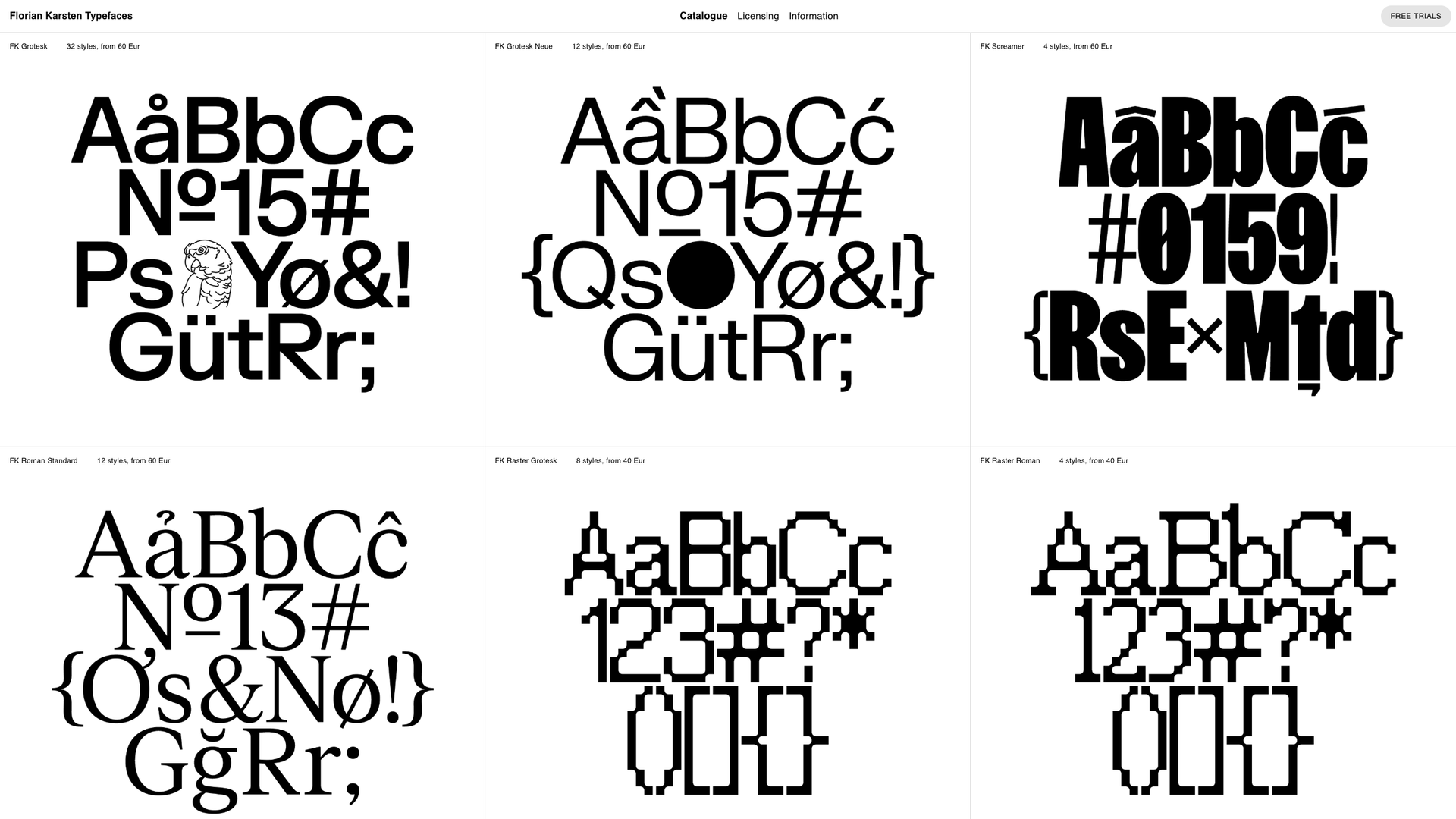
A curated collection of Florian Karsten’s typefaces, including FK Grotesk, FK Grotesk Neue, FK Screamer, FK Roman Standard, FK Raster Grotesk, FK Raster Roman, FK Display, Space Grotesk and Montagu Slab. Offers 32‑style Grotesk family, multiple slab and display fonts, with both commercial licenses (starting at €40) and open‑source releases. Ideal for designers seeking versatile, high‑quality fonts for branding, UI, editorial and print projects.